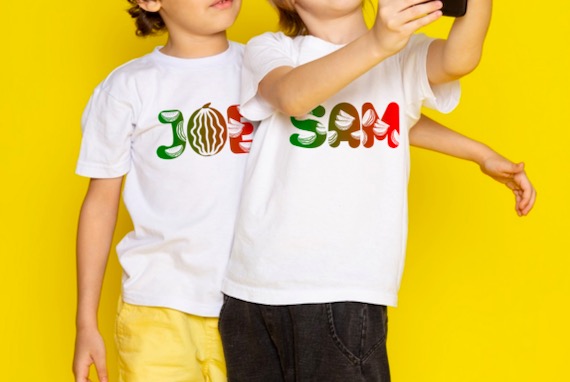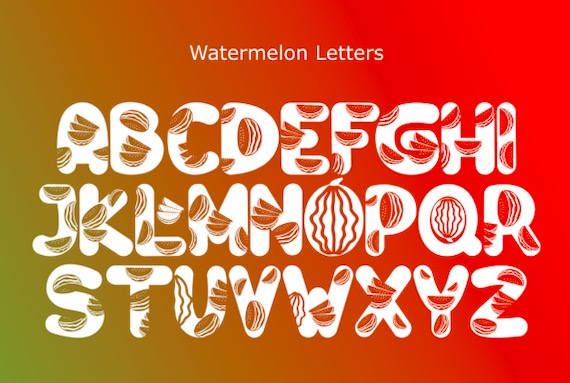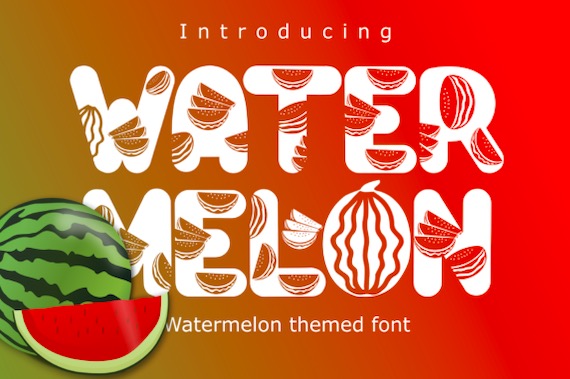
Watermelon Font will help you feel easy in designing with a versatile design style. It’s a strong and incredibly unique display font that shows unique watermelon ornaments in every character. Watermelon was made and shared by Rusd studio which makes your ideas into the true product.
Watermelon Display Font